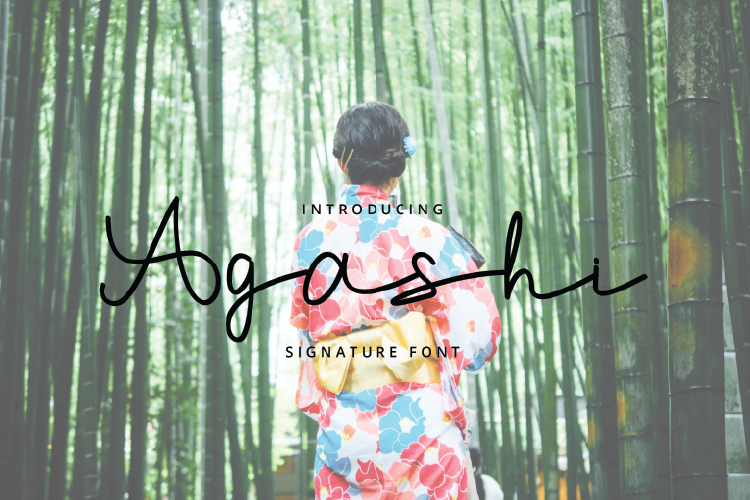
Agashi Signature Font
I am back again with a new item or a new font with a signature style with the name "Agashi".
This font you can use for any needs. according to your needs.